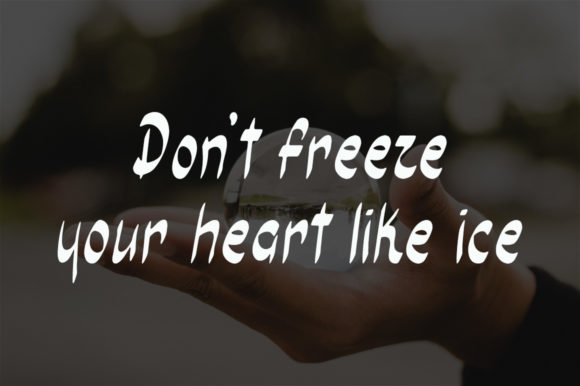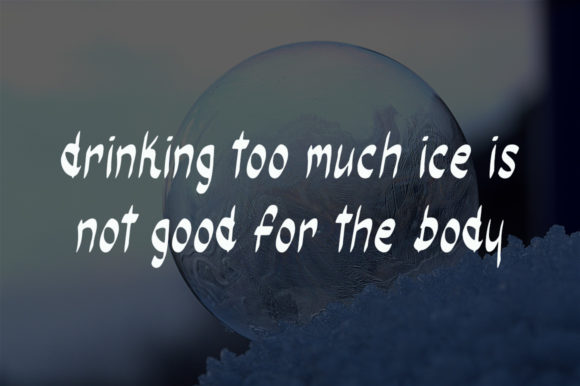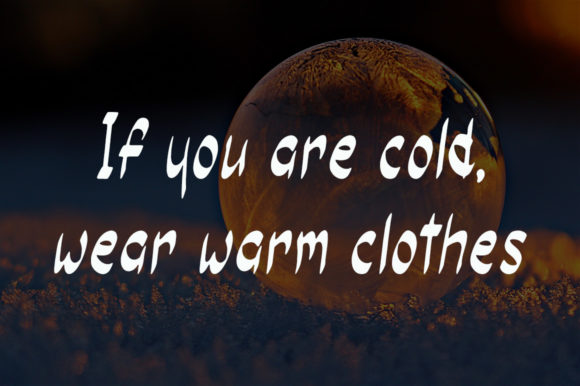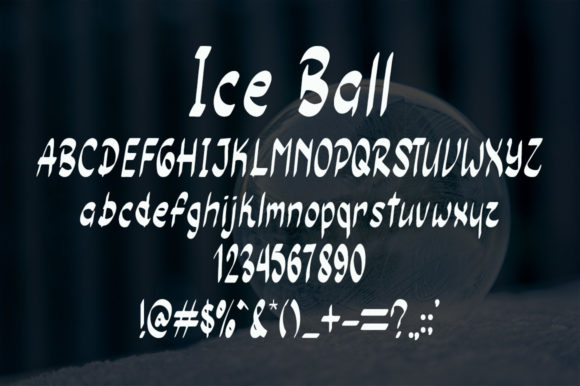
Discovering the Perfect Font for Your Next Creative Project
Have you ever found yourself stuck in front of a blank design canvas, struggling to bring your idea to life? It’s a familiar feeling for many creatives, and it’s often the moment when a new font can make all the difference. For me, it was a late-night brainstorming session that led me to the perfect solution – the Ice Ball Font.
This charming handwritten font is more than just a pretty face. With its clean and quirky style, Ice Ball Font is the perfect fit for logos, branding, social media, and crafty DIY projects. Whether you’re a seasoned designer or just starting out, this versatile font is sure to bring a touch of personality to your work.
So why is Ice Ball Font so valuable for designers? Its unique blend of elegance and playfulness makes it a standout choice for projects that require a little extra flair. And with its wide range of applications, you can be sure that this font will be your go-to companion for all your creative endeavors.
Key Features of Ice Ball Font
- Font Family: Ice Ball Font is a unique, hand-drawn font family consisting of multiple styles, including regular, bold, italic, and bold italic.
- Character Set: The font includes a wide range of characters, including uppercase and lowercase letters, numbers, punctuation marks, and special characters.
- Size and Resolution: Ice Ball Font is designed to be scalable, making it suitable for use in various sizes and resolutions, from small text to large headlines.
- Unique Characteristics: The font features a distinctive, rounded design with a unique ‘ice ball’ shape, giving it a playful and eye-catching appearance.
Ice Ball Font Review
Overall, I found “Ice Ball Font” to be an interesting and unique font. There are some aspects that I particularly enjoy. ✨ The playful, rounded shapes of the characters give it a fun and approachable feel. The font also has a good balance of elegance and whimsy, making it suitable for a wide range of projects.
Some of the standout features of “Ice Ball Font” include:
- ✨ Unique and distinctive character shapes
- ✨ Suitable for both digital and print projects
However, there are some limitations to consider. ⚠️ The font may not be suitable for projects that require a high level of professionalism or formality. Additionally, some users may find the rounded shapes to be too childish or immature.
Overall, I would recommend “Ice Ball Font” for projects that require a playful and approachable tone. While it may not be the best choice for every project, it is a unique and eye-catching option that can add some personality to your designs.
The Ice Ball font is perfect for:
- Creating eye-catching headings and titles.
- Adding a touch of whimsy to your design.
- Creating custom text elements for social media graphics or advertising materials.
Alternative Fonts to Ice Ball Font
Comic Sans MS is a casual, sans-serif font that was designed to mimic hand-drawn letters. It is often used for informal purposes such as blog posts, social media, and children’s materials. Compared to Ice Ball Font, Comic Sans MS is more playful and informal, making it suitable for projects that require a lighthearted tone.
Great Vibes is a modern, script font that is perfect for creating a sense of elegance and sophistication. It is often used for invitations, wedding cards, and other formal materials. Compared to Ice Ball Font, Great Vibes is more refined and polished, making it suitable for projects that require a touch of glamour.